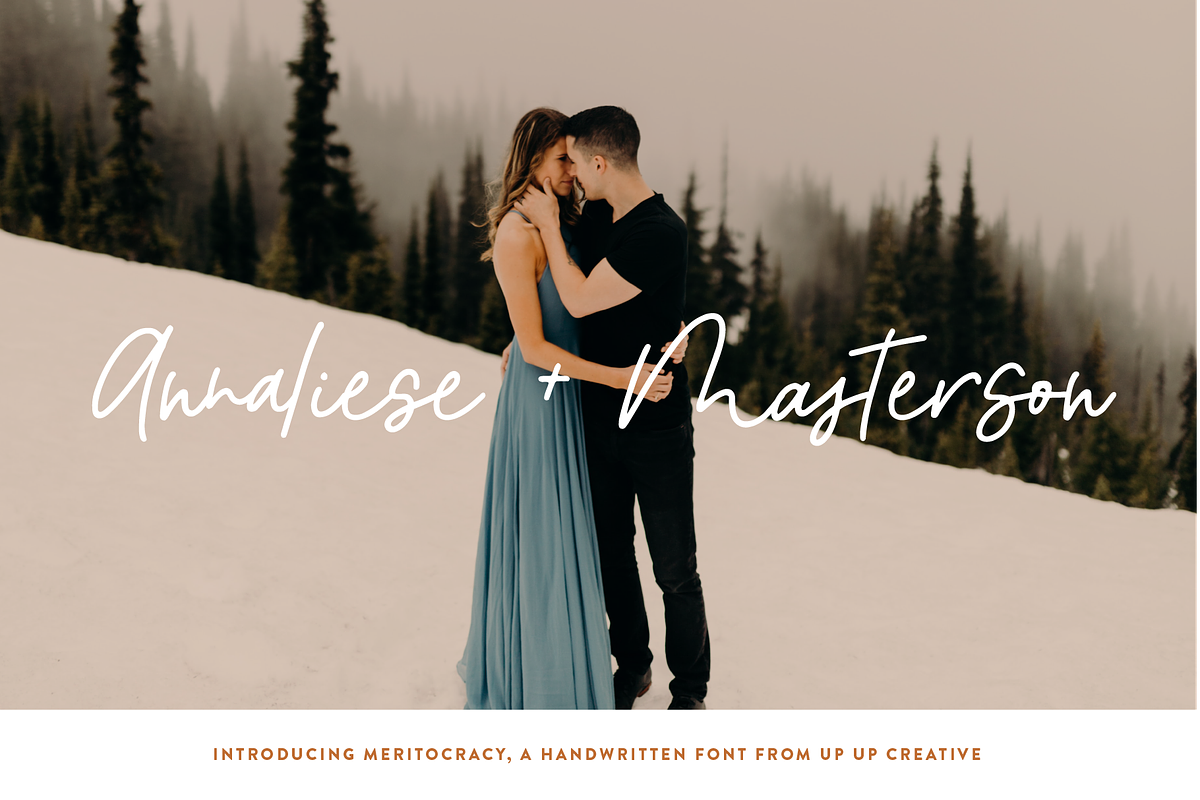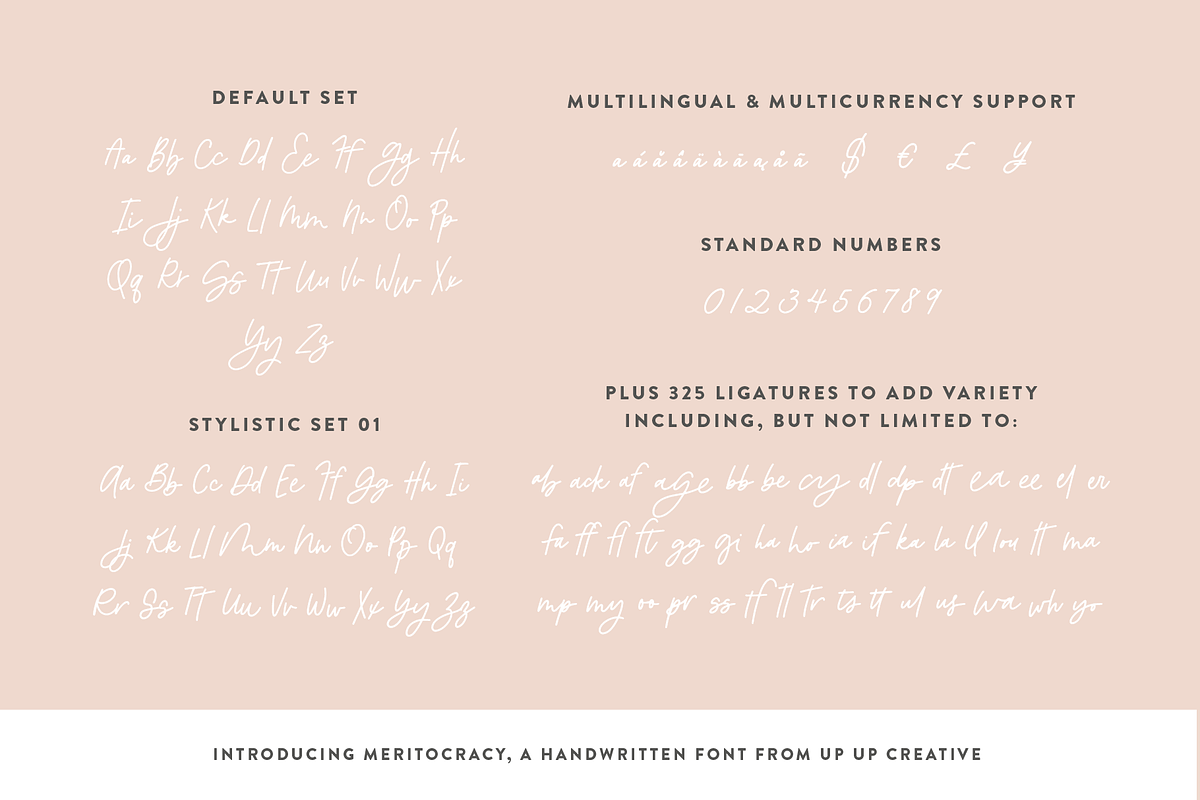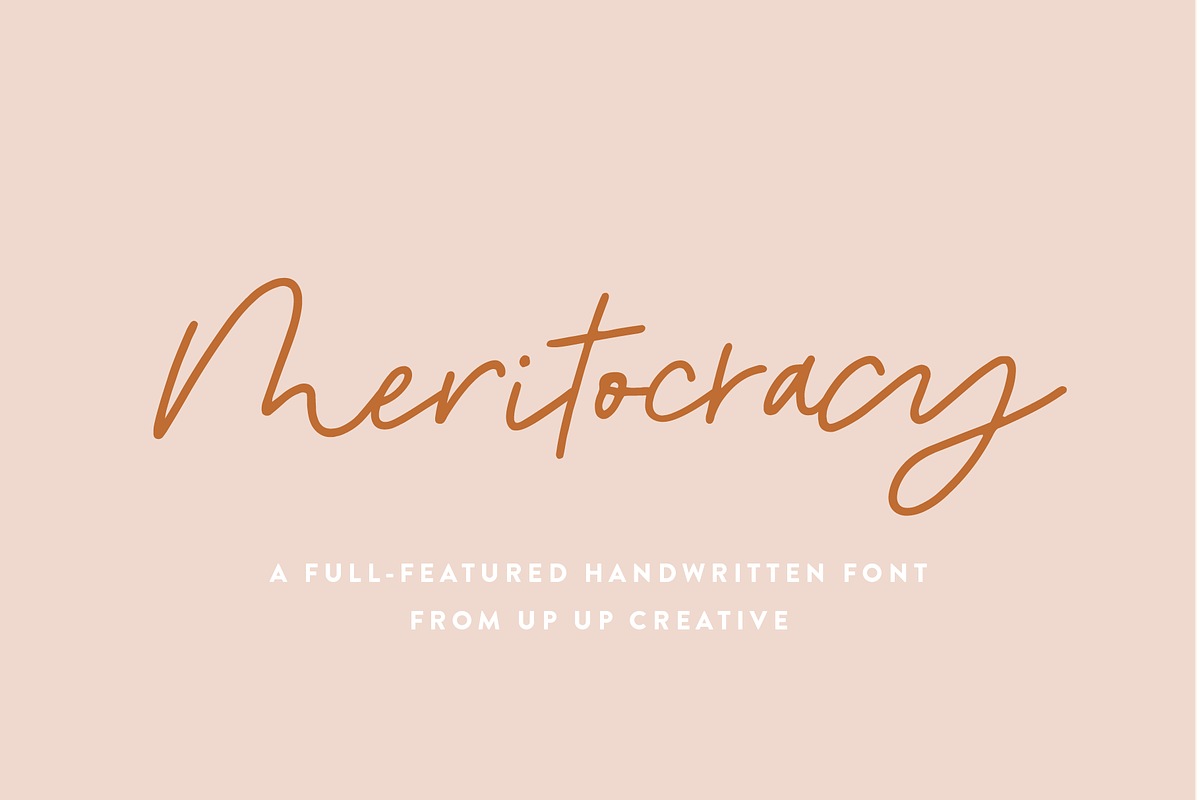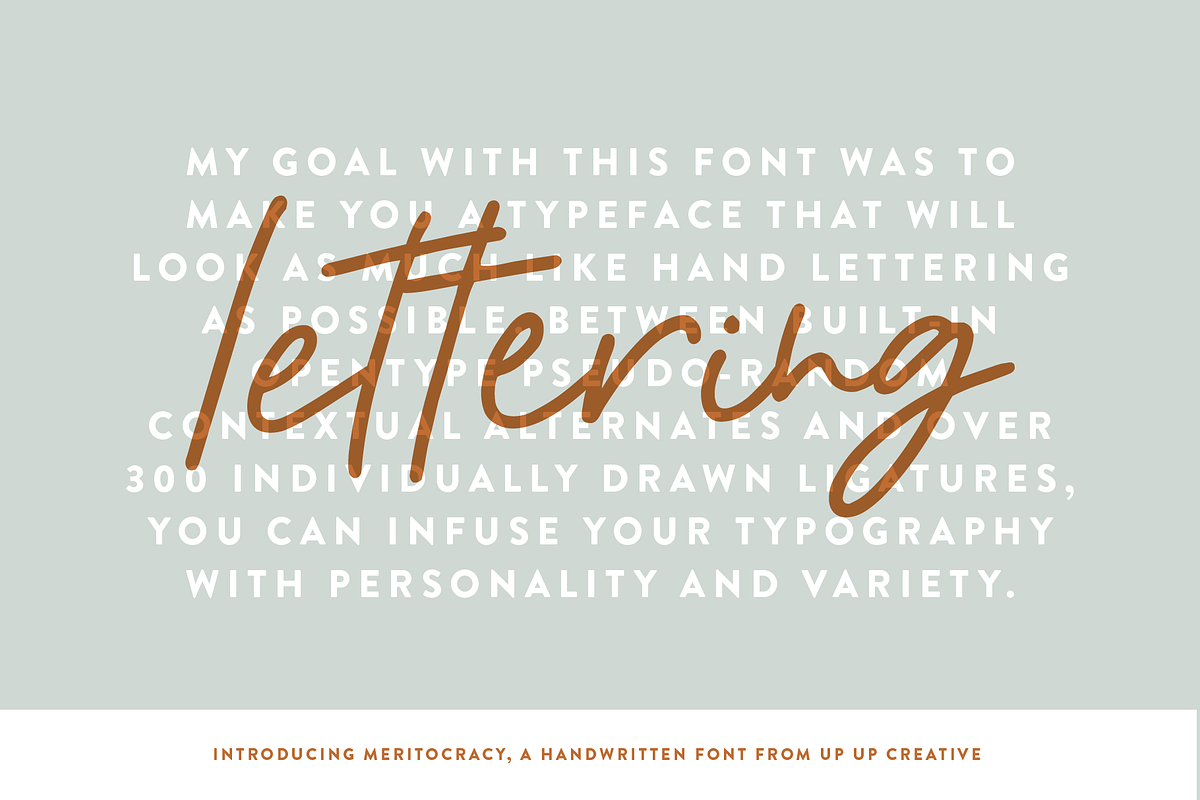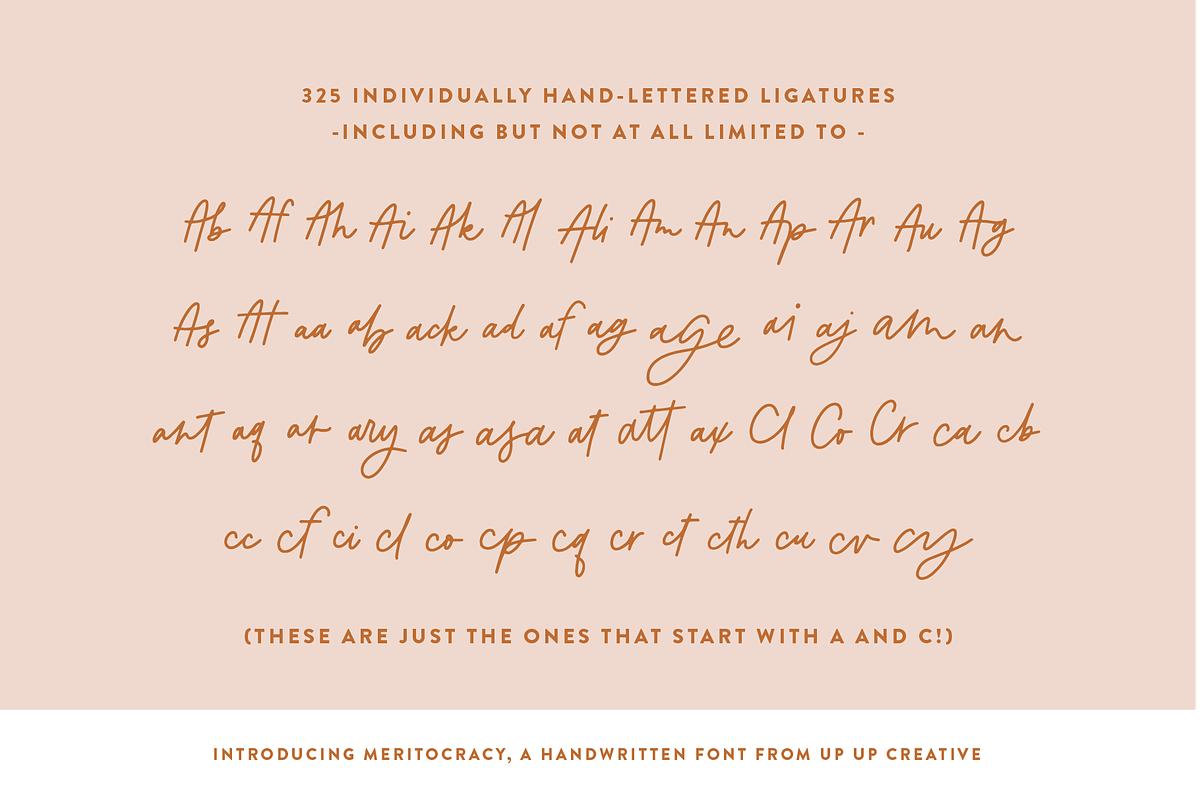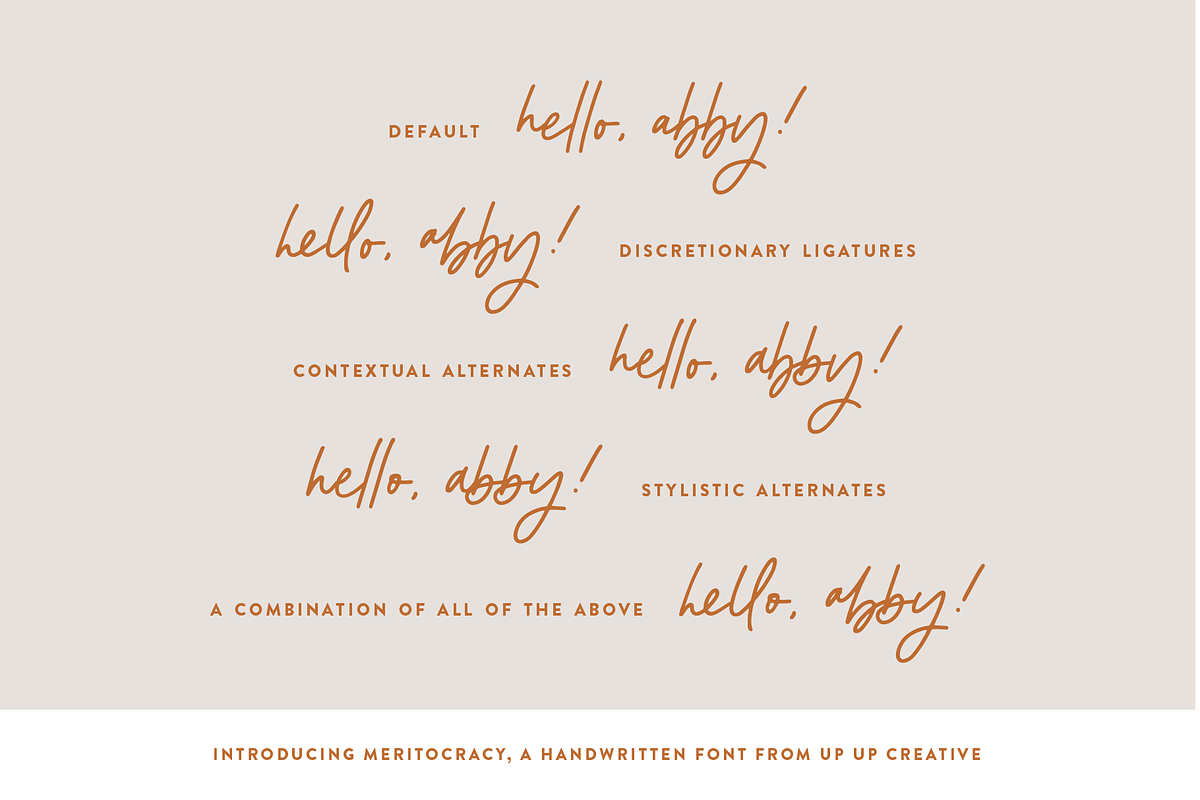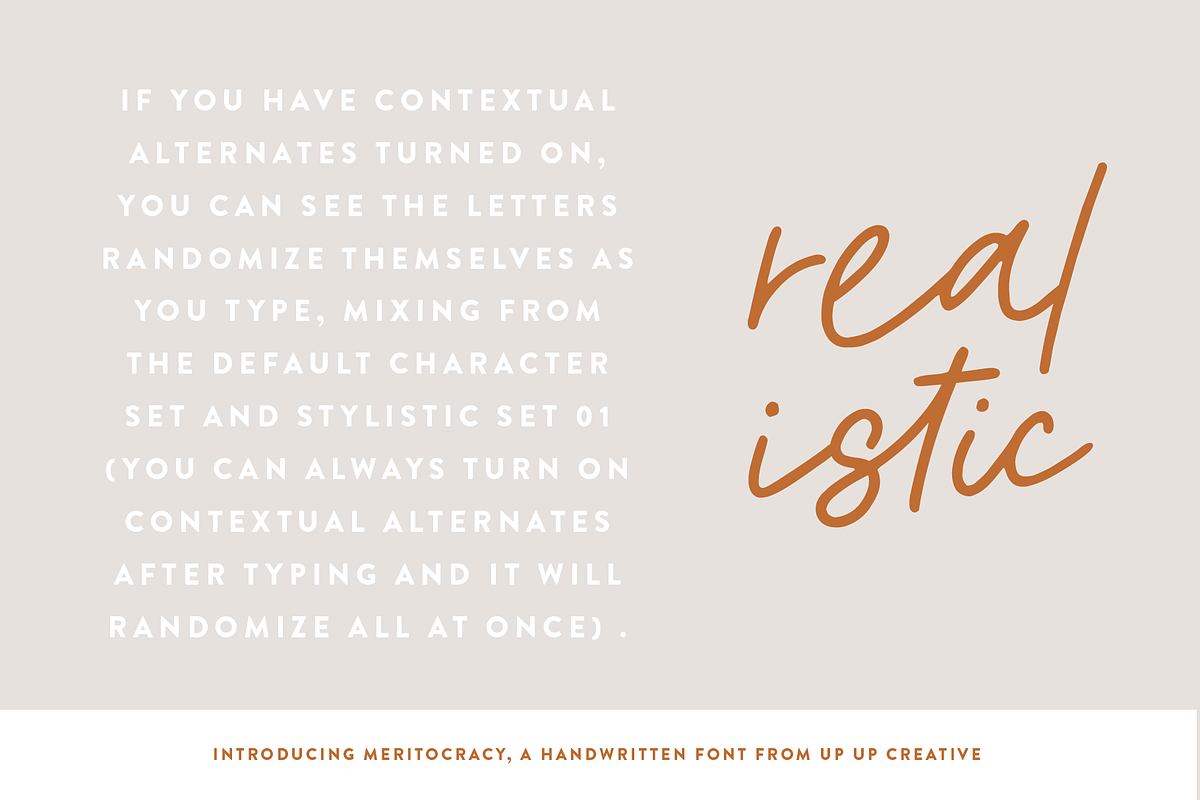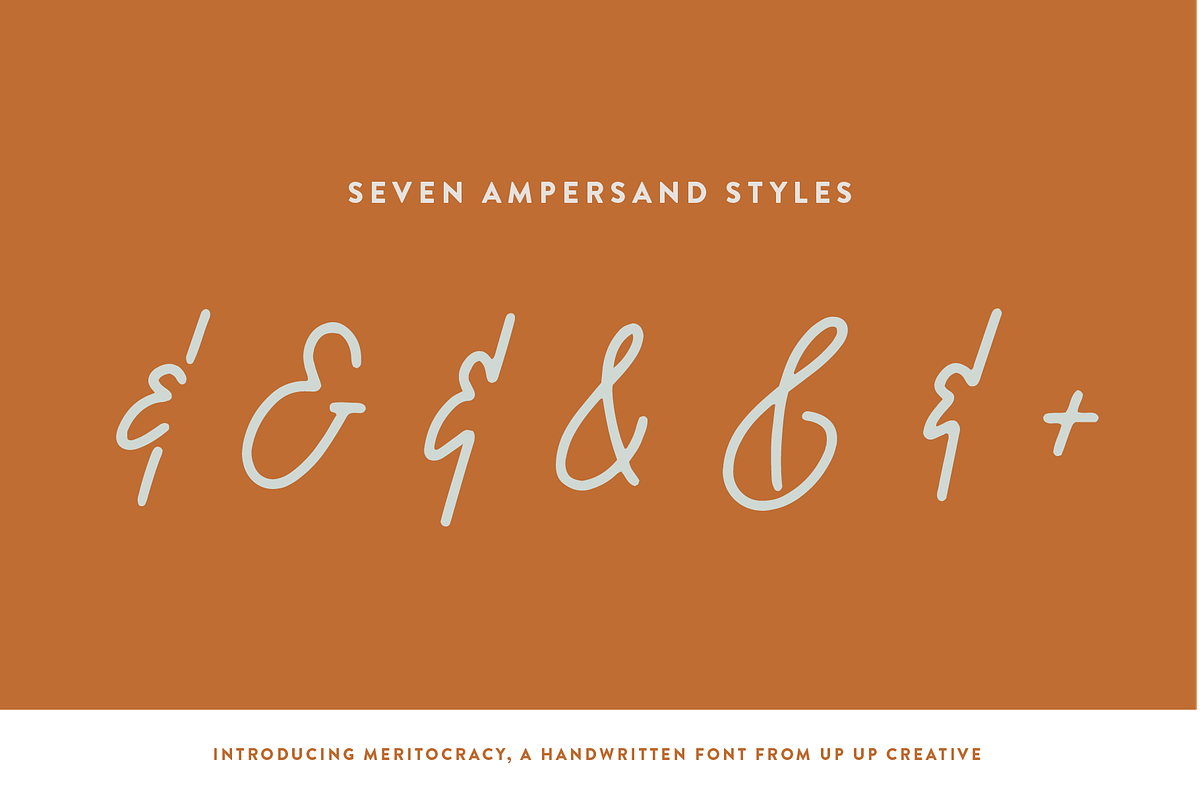
Meritocracy Handwritten Font
Introducing Meritocracy, a full-featured handwritten font with tons of alternate characters and OpenType features. My goal with this font was to make you a typeface that will look as much like hand lettering as possible. Using the built-in OpenType pseudo-random contextual alternates and over 300 individually drawn ligatures, you can infuse your typography with personality and variety.
OpenType Features
Meritocracy comes with more than 900 glyphs! Specific OpenType features include contextual alternates, stylistic alternates, a second stylistic set for variety, multiple alternate glyphs for many letters (accessed through the glyphs panel), multilingual support (including multiple currency symbols), standard numbers, and seven ampersand styles. It also includes 325+ standard and discretionary ligatures, all of them individually hand-drawn to be different from all other glyphs in the font. These ligatures allow you to give a super-realistic hand-lettered look to your typography. You can write the same word in so many different ways if you combine the default set, stylistic set 01, and standard and discretionary ligatures in different ways.
SPECIAL OPENTYPE FEATURE: If you are using OpenType-capable software like Adobe Illustrator, Photoshop, InDesign, or CorelDraw and you have contextual alternates turned on, you can see the letters randomize themselves as you type, mixing from the default character set and stylistic set 01. (You can always turn on contextual alternates after you have already typed your passage and it will randomize all at once, or you can choose to turn off contextual alternates and substitute specific glyphs yourself - I find that if I'm typing a word or two, I prefer to control the individual glyphs myself; if I'm typing a paragraph, I like to use the built-in randomness of the contextual alternates feature).
See a little glimpse of this feature in action right here:
Note that this pseudo-randomization (aka contextual alternate feature) is ON by default in Apple's Pages app and OFF by default in Microsoft Word, but it can be turned on.